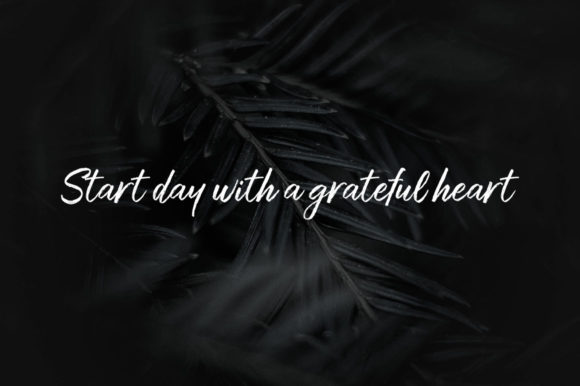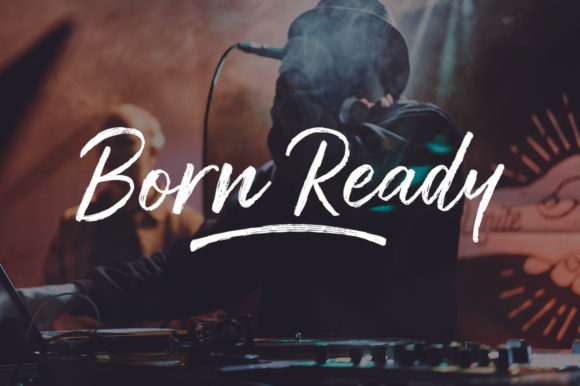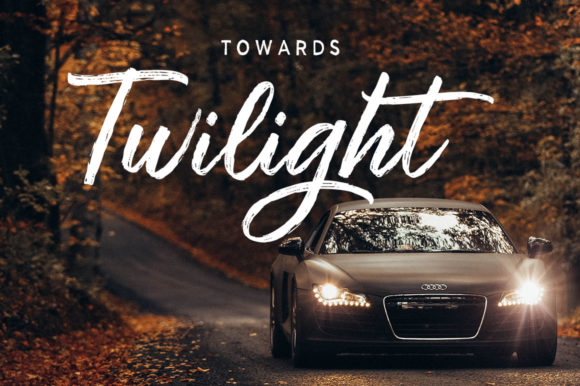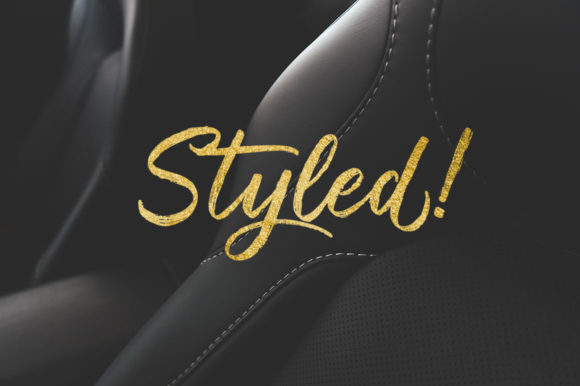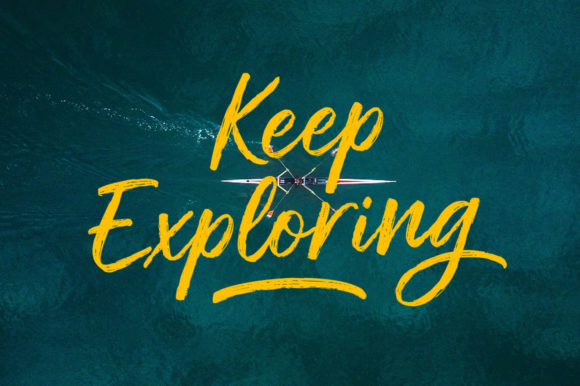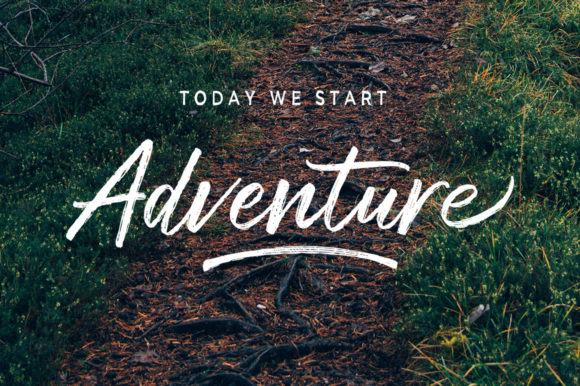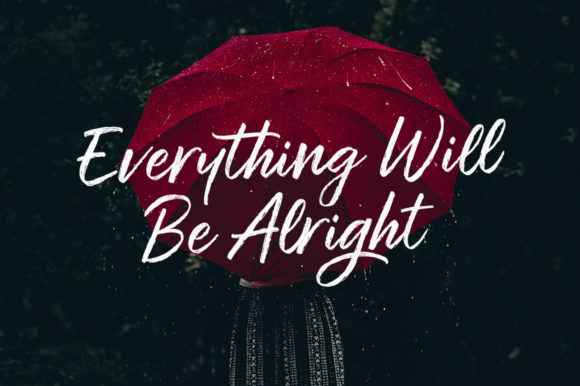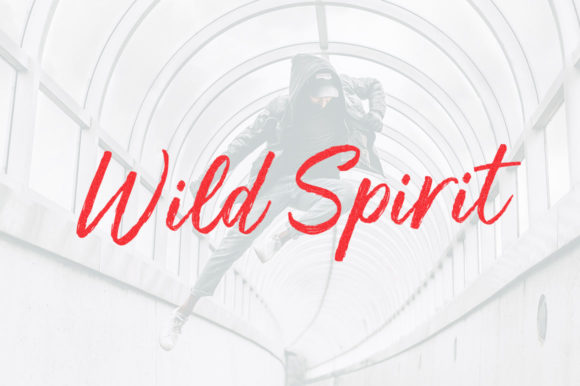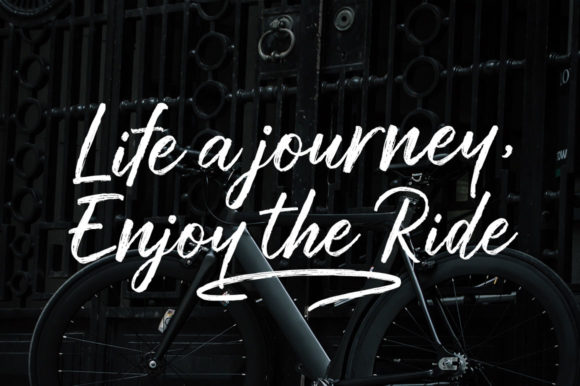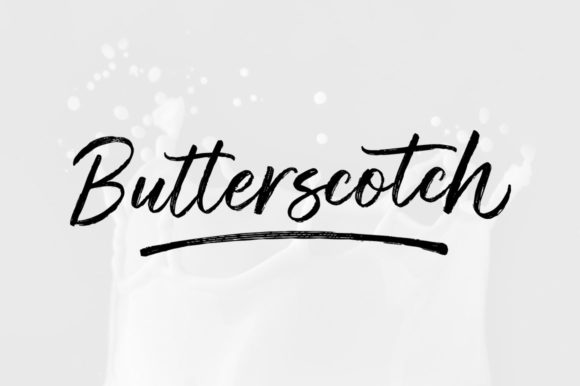
Muthea Font
About Muthea Font
Introducing The Muthea, a fascinating brushed texture font that adds a touch of handmade artistry with its irregular baseline. This unique font is not just a typographic choice; it’s a design statement that brings an interesting and dynamic texture to a wide range of creative projects.
The Muthea’s brushed texture and irregular baseline set it apart, creating a distinctive and handcrafted feel. This font is versatile, making it well-suited for an array of applications. Whether you’re working on title designs, clothing labels, logos, greeting cards, T-shirts, packaging designs, invitations, book titles, stationery, quotes, branding, posters, or any other creative endeavor, The Muthea elevates your designs with its textured and artisanal charm.
The irregular baseline of The Muthea adds an element of uniqueness and character, making it an excellent choice for projects that seek a more organic and expressive look. Its brushed texture gives your text a tactile quality, making it visually interesting and engaging.
For clothing labels and T-shirt designs, The Muthea brings a touch of authenticity and individuality. Logos benefit from its handmade and textured appearance, establishing a distinct and memorable brand identity. Greeting cards, invitations, and stationery designs gain a personalized and artistic touch with this font.
In essence, The Muthea is more than just a font; it’s a design tool that brings a brushed texture and irregular charm to your creative toolkit. Embrace the handmade and artisanal quality of The Muthea and let it enhance your title designs, branding, packaging, and various other projects with a touch of uniqueness and creativity.